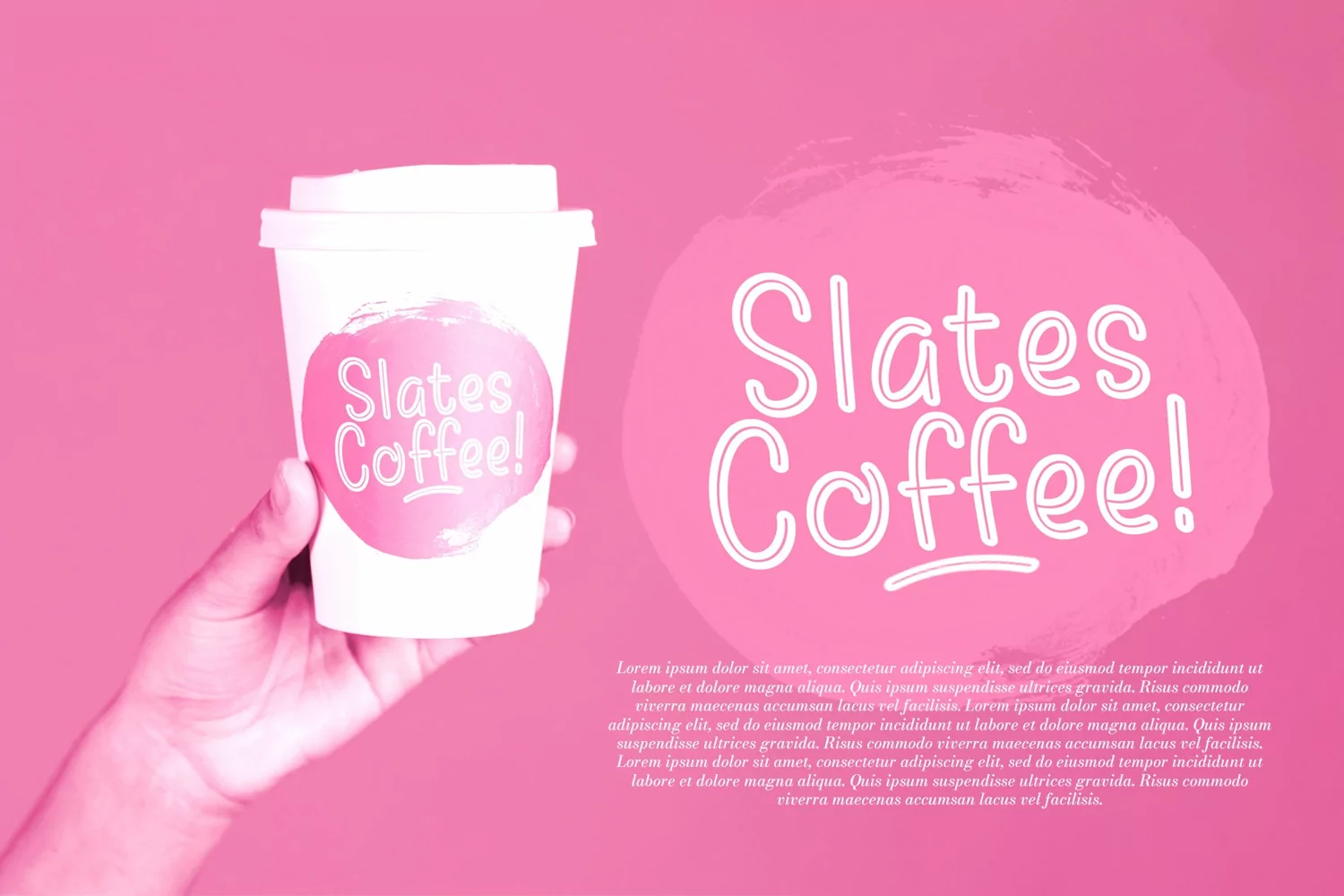
Bulias is a fancy display typeface. Perfect for display, poster, quotes, film, craft needs, book cover, business card, packaging, merchandise, branding, logo, logotype, header, title, and many more.